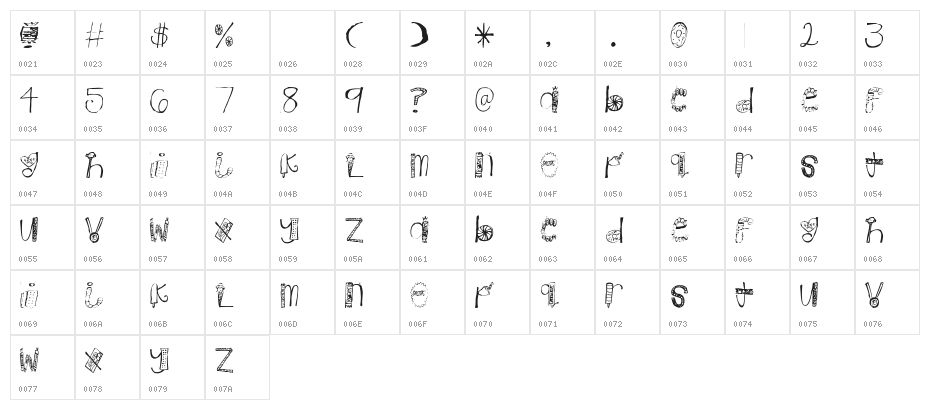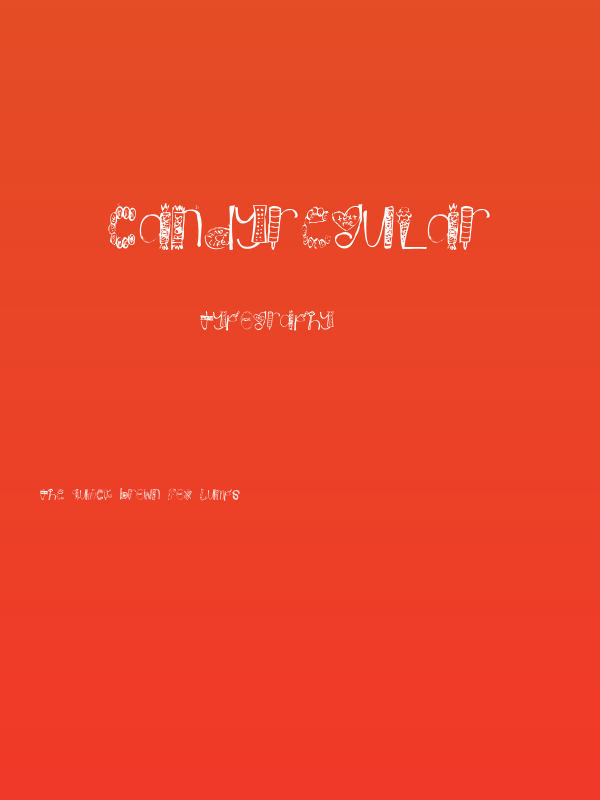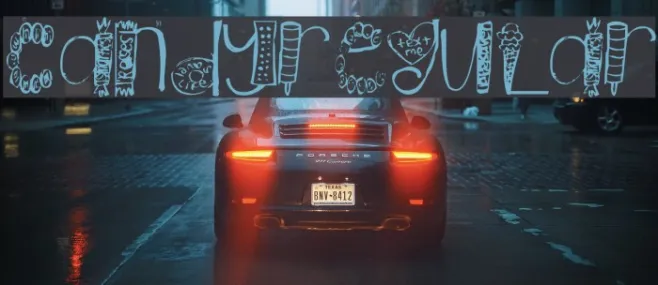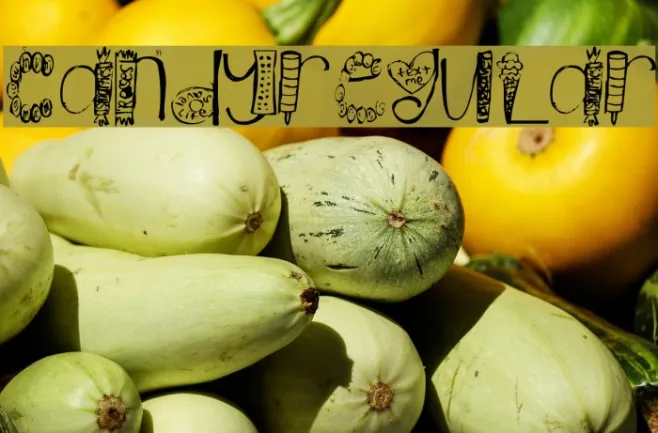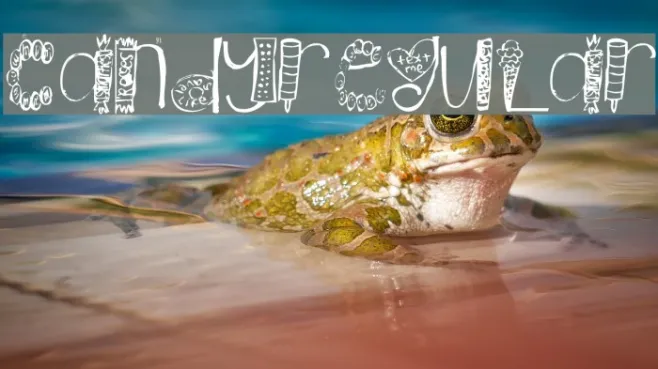
CandyRegular Font
CandyRegular Description
This playful and whimsical font features a variety of decorative elements that make each character unique. The letters are adorned with patterns, doodles, and playful motifs, giving it a hand-drawn and artistic feel. The uppercase and lowercase letters maintain a consistent style, with each character showcasing a different design element, such as stripes, dots, or swirls. Numbers and special characters follow the same creative approach, adding to the font's overall charm. This font is perfect for projects that require a fun and imaginative touch.
| Overall Style | Playful, Artistic, Whimsical |